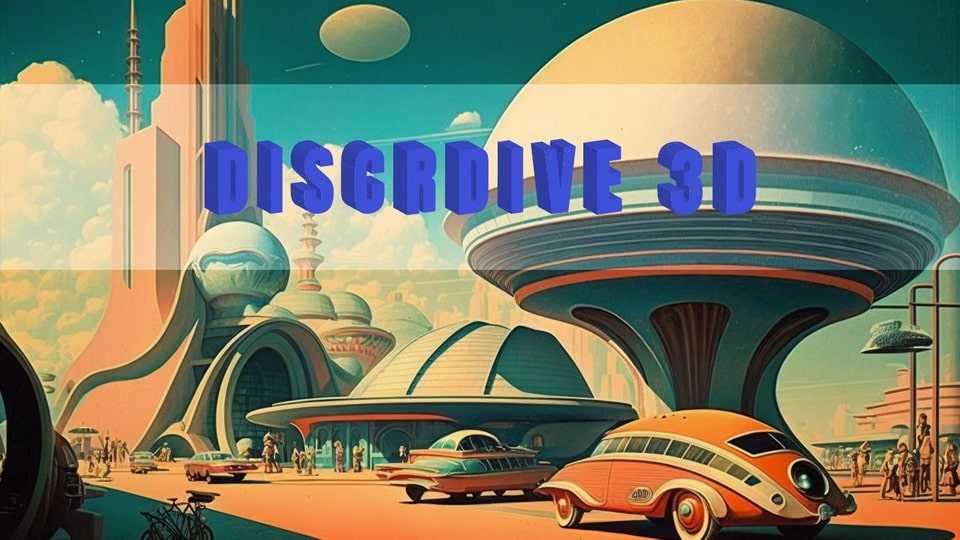
Download Discrdive 3D font, the perfect typeface for the Discord community! This font is dedicated to bringing your Discord messages to life with its sleek and modern design.